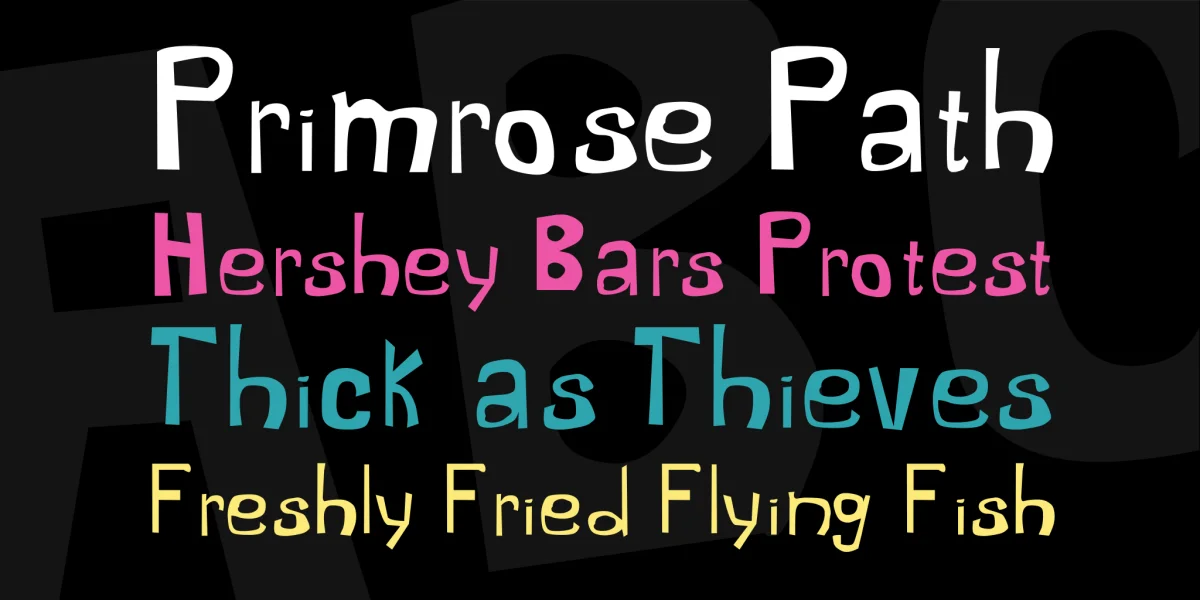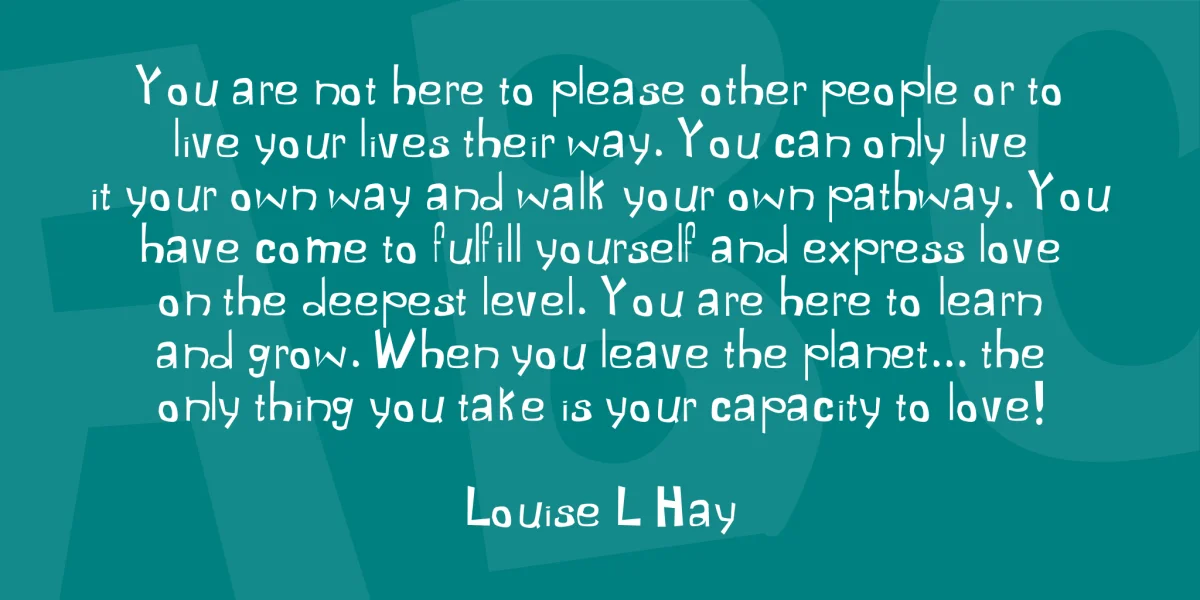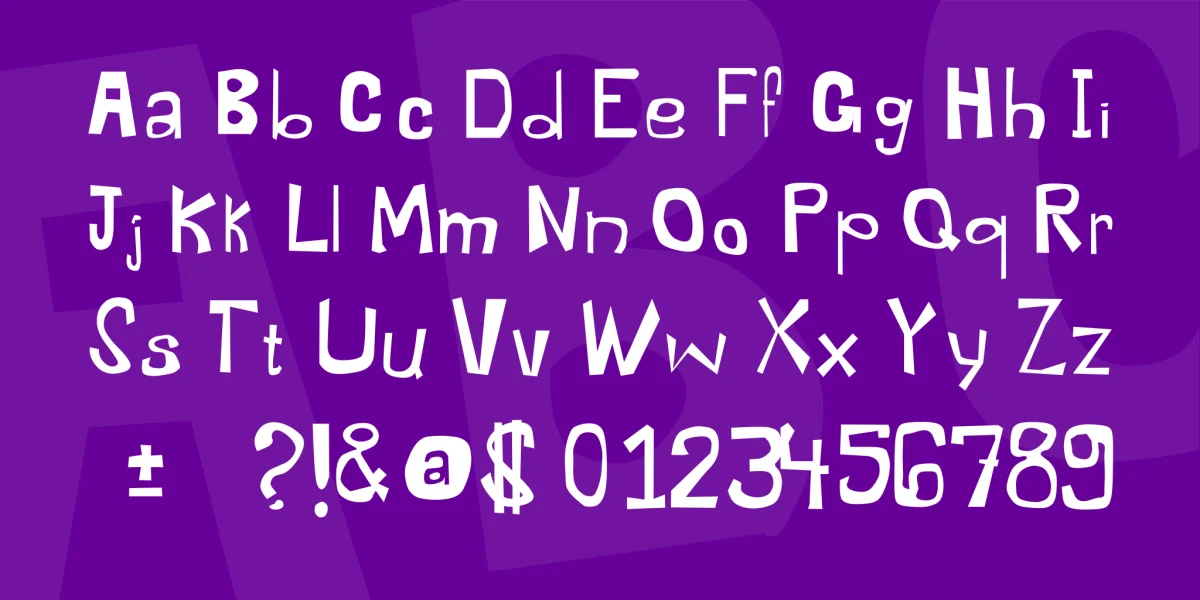
This is my first font. It is loosely based on my own handwriting but in a comic style.
Version 1.5 includes a lot of characters I missed the first time around, such including all the German accents and a good deal of the French and Spanish characters, as well as some lesser-used characters like the æ.